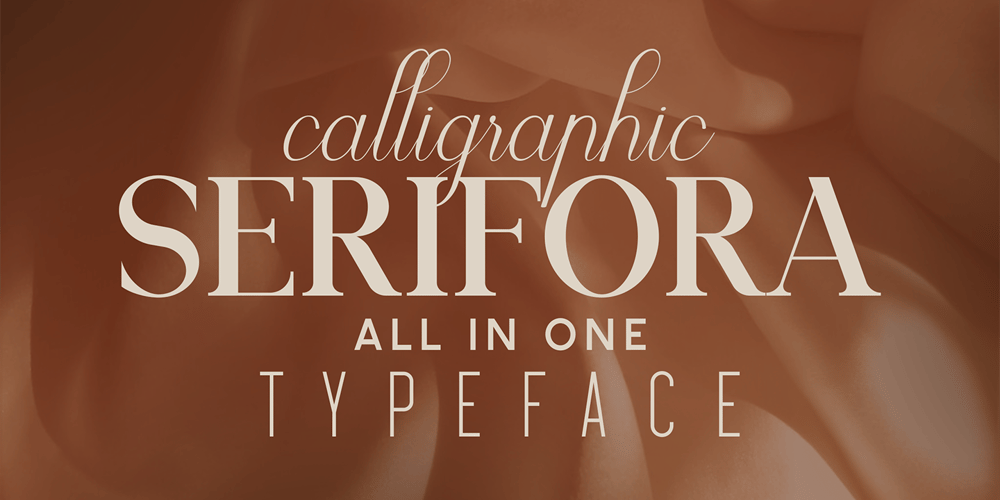
Serifora Font Family was designed by Vladimir Fedotov, Plamen Petrov and published by VP Creative Shop. Serifora contains 8 styles and family package options. Serifora is a versatile and elegant typeface that offers serif, sans serif, narrow, and script versions, along with italics. With support for 87 languages, it caters to a wide range of design needs. Its classic serifs, modern sans serif, condensed narrow style, and artistic script variant provide options for various design styles and projects. Serifora’s italic versions add emphasis and visual interest. It is a go-to choice for both print and digital media, ensuring clear communication and captivating typography.Language Support : Afrikaans, Albanian, Asu, Basque, Bemba, Bena, Breton, Chiga, Colognian, Cornish, Czech, Danish, Dutch, Embu, English, Estonian, Faroese, Filipino, Finnish, French, Friulian, Galician, Ganda, German, Gusi,i Hungarian, Indonesian, Irish, Italian, Jola-Fonyi, Kabuverdianu, Kalenjin, Kamba, Kikuyu, Kinyarwanda, Latvian, Lithuanian, Lower Sorbian, Luo, Luxembourgish, Luyia, Machame, Makhuwa-Meetto, Makonde, Malagasy, Maltese, Manx, Meru, Morisyen, North Ndebele, Norwegian, Bokmål, Norwegian, Nynorsk, Nyankole, Oromo, Polish, Portuguese, Quechua, Romanian, Romansh, Rombo, Rundi, Rwa, Samburu, Sango, Sangu, Scottish, Gaelic, Sena, Shambala, Shona, Slovak, Soga, Somali, Spanish, Swahili, Swedish, Swiss, German, Taita, Teso, Turkish, Upper, Sorbian, Uzbek (Latin), Volapük, Vunjo, Walser, Welsh, Western Frisian, ZuluMock ups and backgrounds used are not included.Thank you! Enjoy!